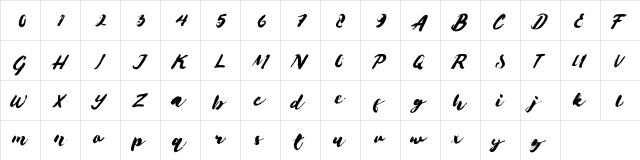
Brushes Regular
Design Context for Brushes Typeface
Brushes flows with the natural rhythm of handwritten lettering, making it ideal for designs that call for warmth and personal expression.
Font Pairing: Combine Brushes with a simple geometric sans for maximum contrast — the tension between flowing curves and clean structure is a classic typographic pairing.
Pro Tip: Use Brushes for short runs of text — names, titles, or taglines. Extended body copy in script faces tires the eye quickly.